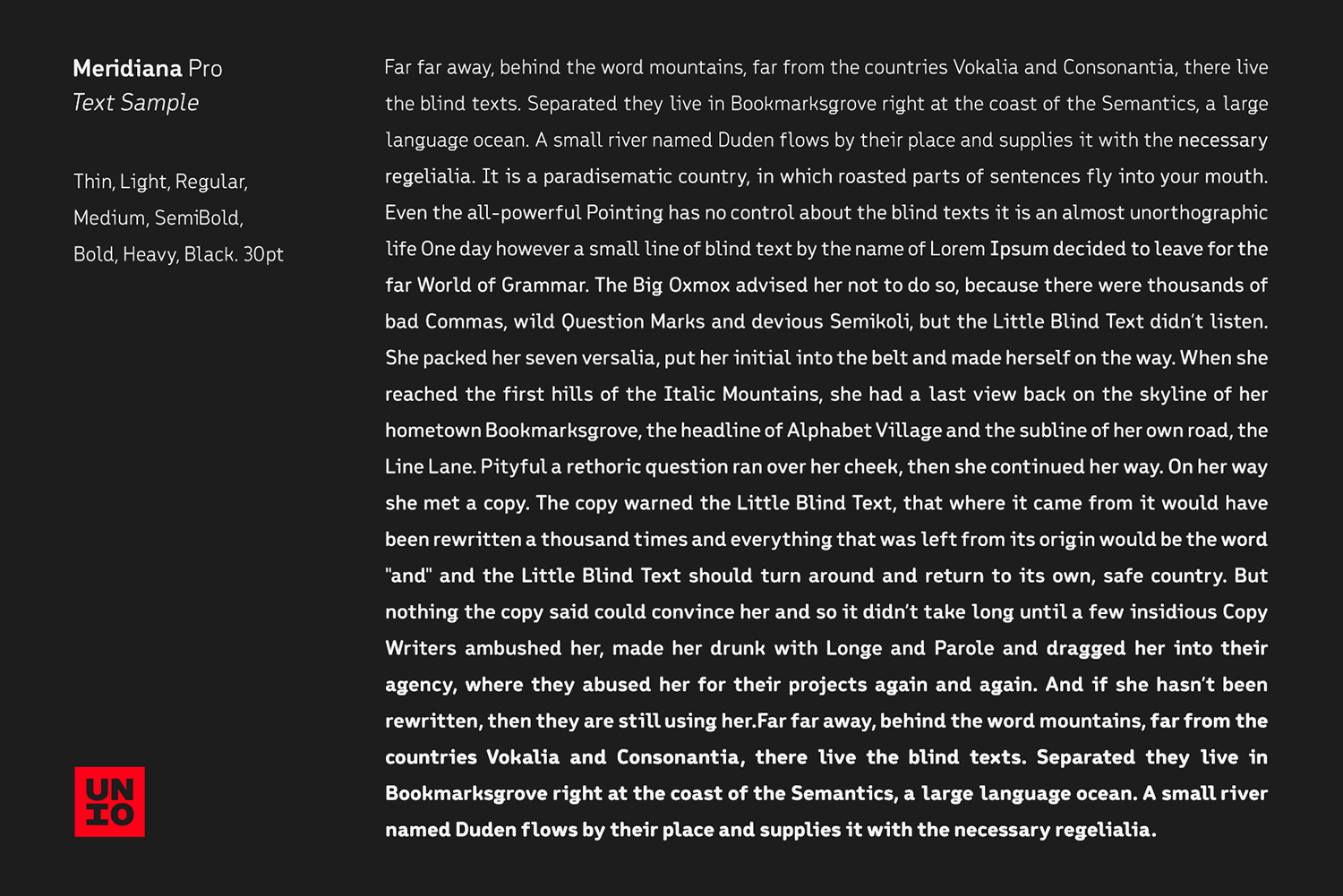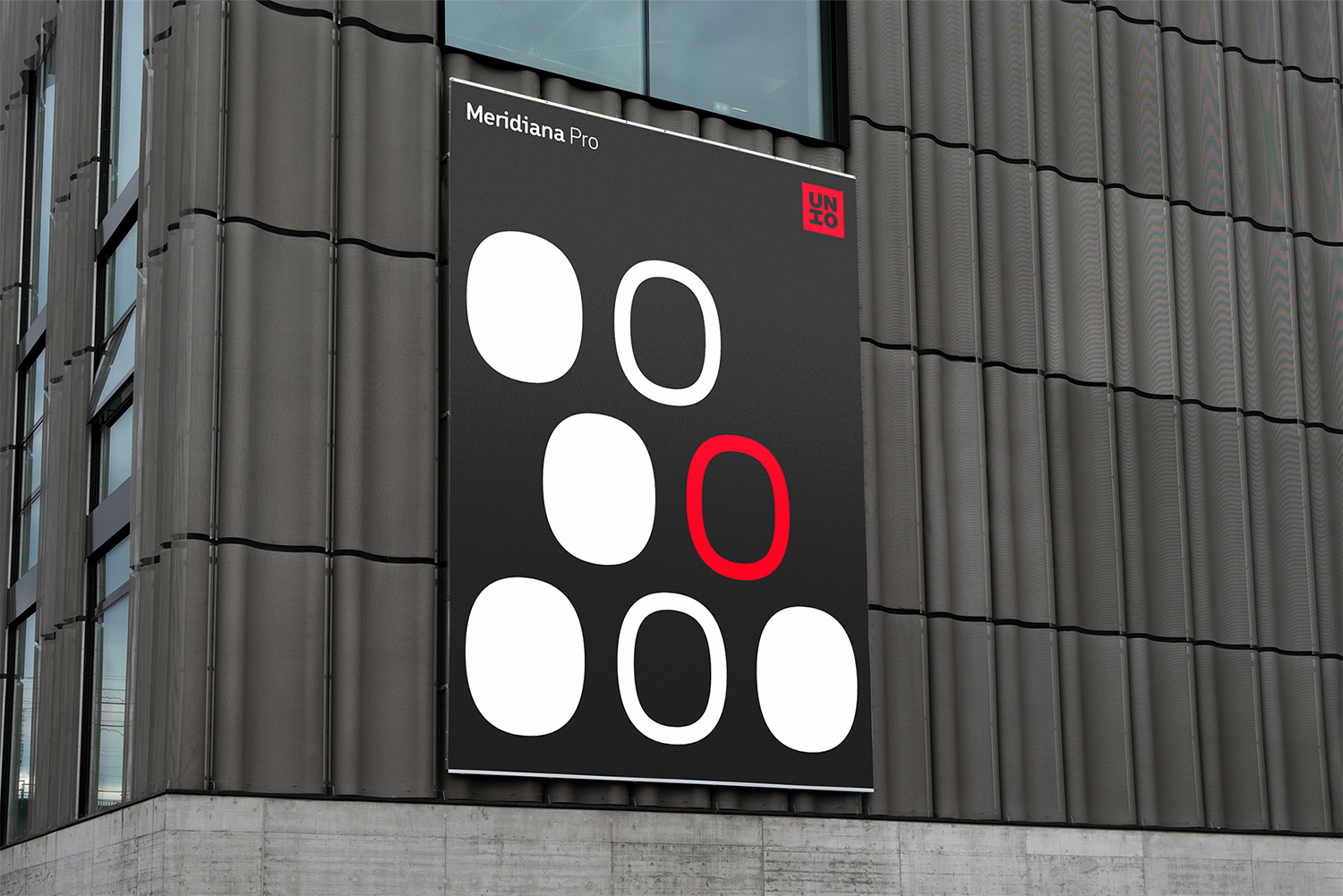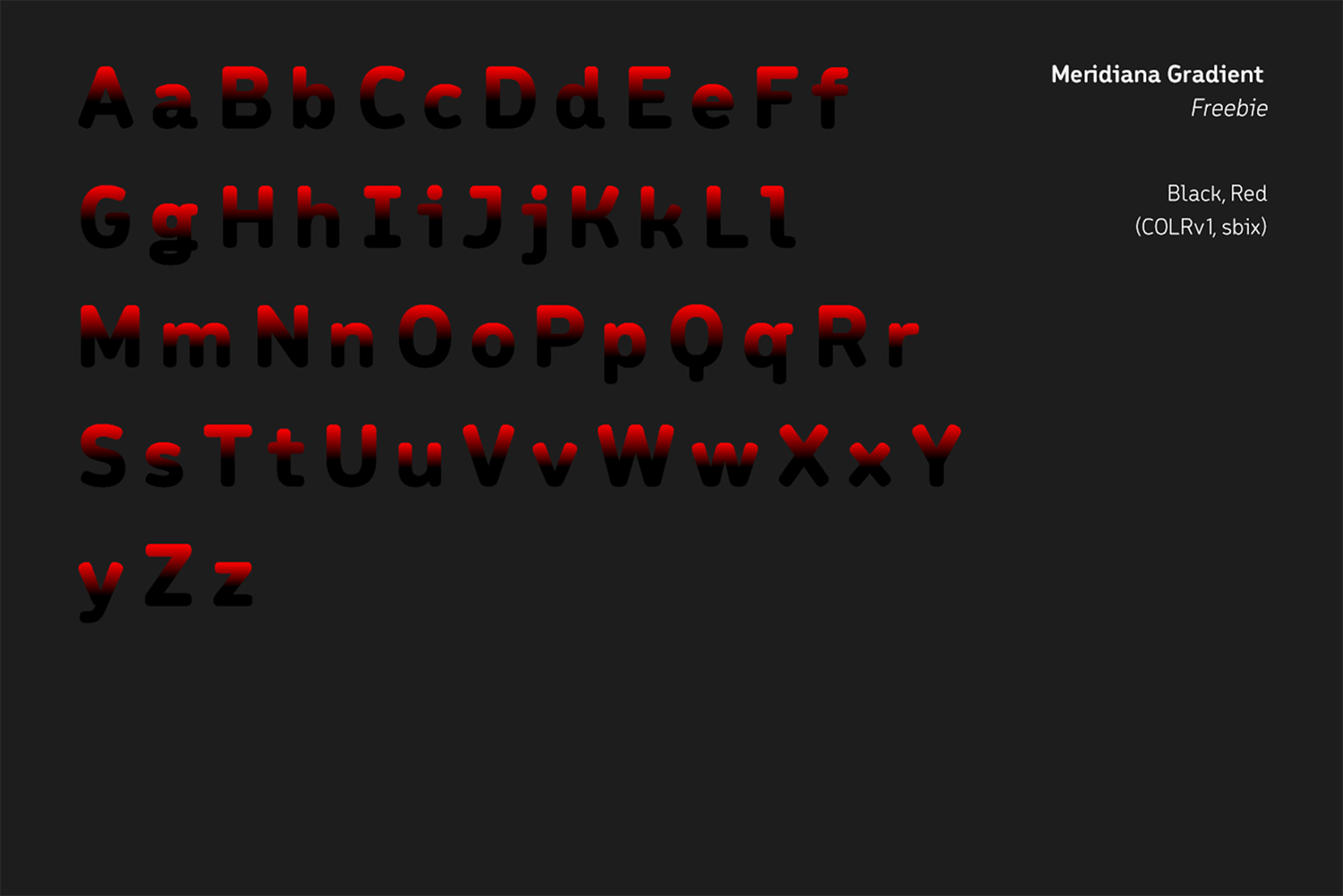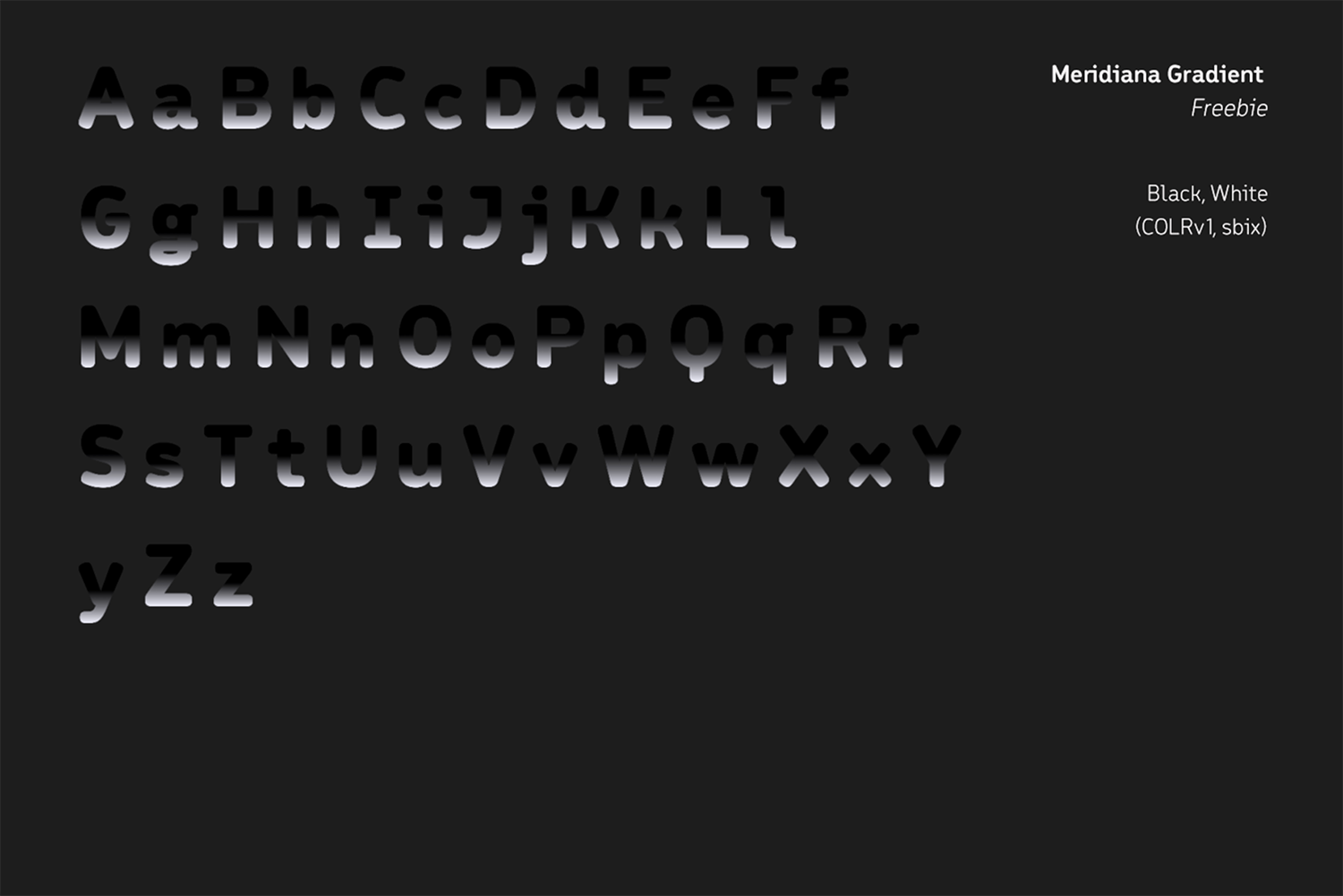
Meridiana Pro Free Font
The concept behind Meridiana Pro Free Font was to create an amalgamation between rounded san and a monospaced font in order to obtain an extensive and usable variable type system. This typeface encapsulates a symmetrical and balanced rhythm due to the unique blend of different sources of inspiration. Proportions are precisely adjusted with smooth contours and subtle contrasts. These forms give the font an eye-catching look without compromising elegance and minimalism, ensuring that each glyph will work well in any graphic design purpose. This free typeface was designed by a talentedΒ Unio Creative Solutions. If you like it don’t forget to check out the full version.